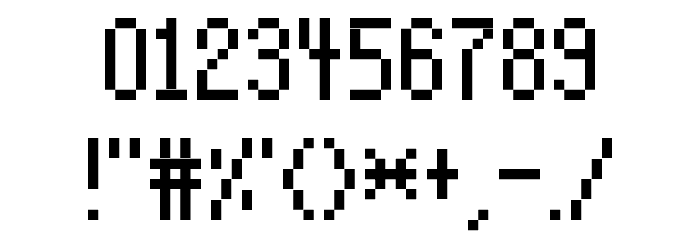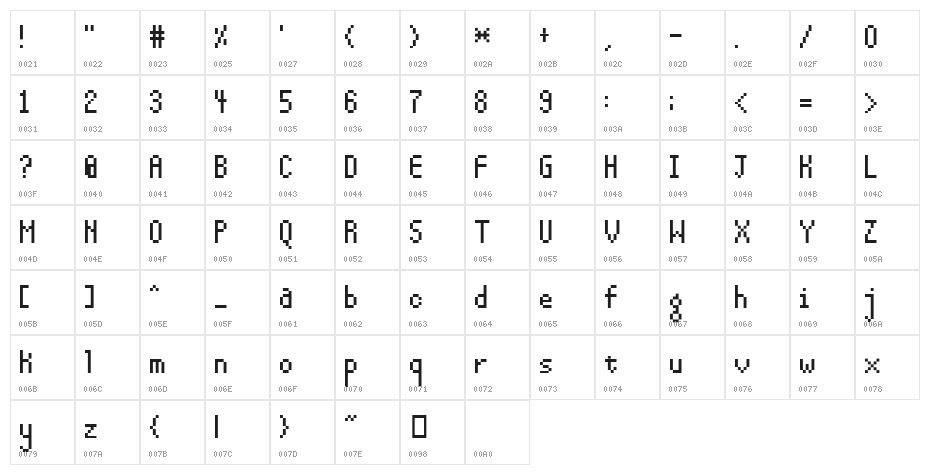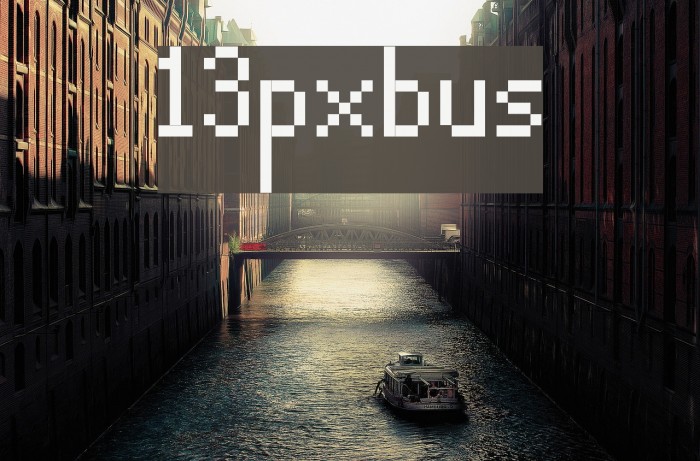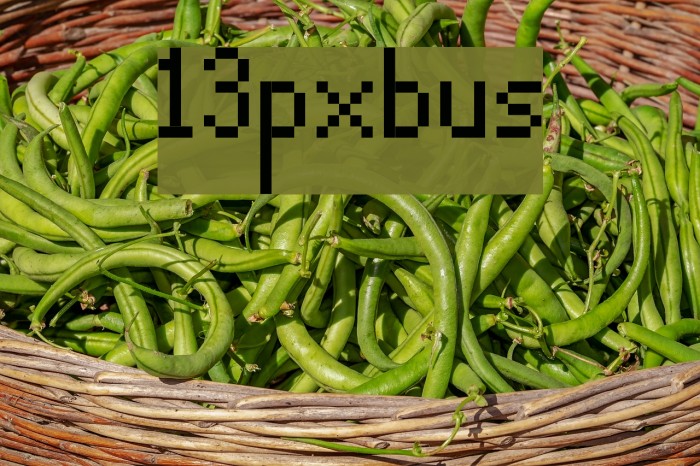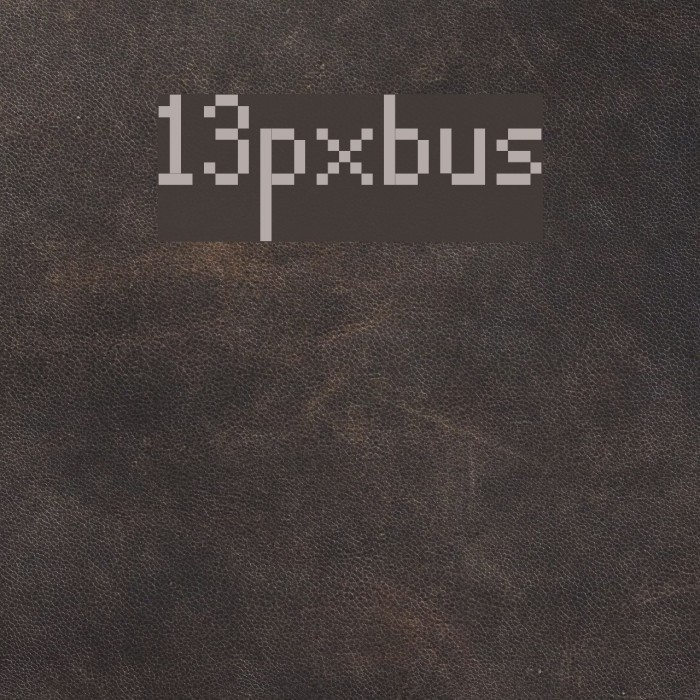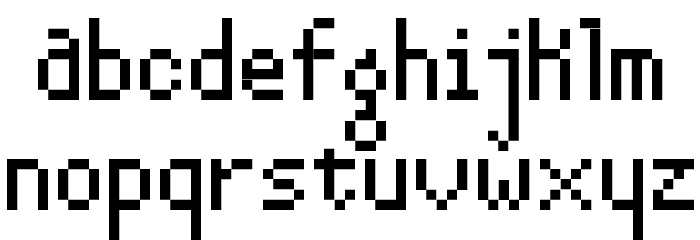
13pxbus Font
13pxbus Description
This font features a pixelated, monospaced design that is reminiscent of early computer and video game graphics. Each character is constructed with a grid-like precision, giving it a distinctly retro and digital appearance. The uppercase and lowercase letters maintain a consistent height and width, contributing to a uniform and orderly look. The numerals and special characters are similarly designed, ensuring a cohesive style throughout. The font's simplicity and blocky nature make it highly legible at small sizes, ideal for digital displays or projects seeking a nostalgic aesthetic.
13PXBUS UPPERCASE
13PXBUS LOWERCASE
13PXBUS OTHER CHARS
| Use Case | Digital displays, Retro games, Tech-themed designs |
| Proposed Projects | Ideal for retro video games, digital art projects, tech-themed designs, or any project requiring a vintage digital aesthetic. |